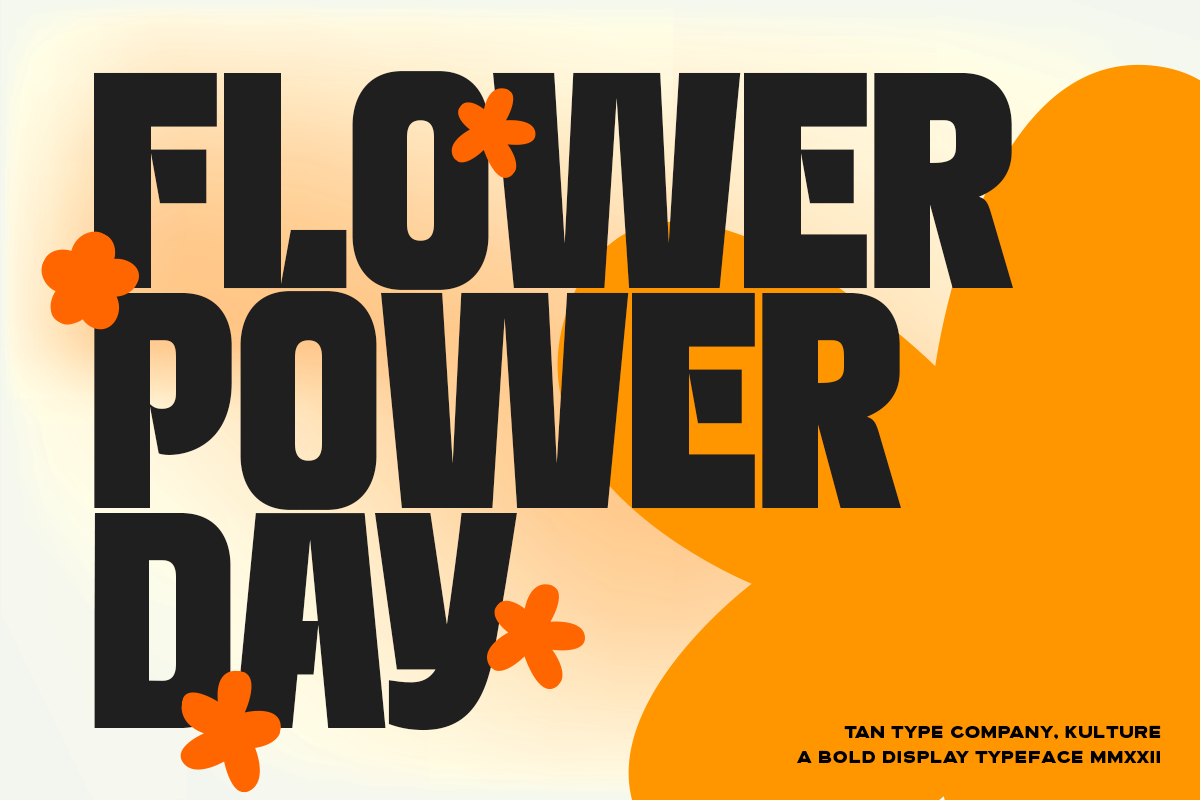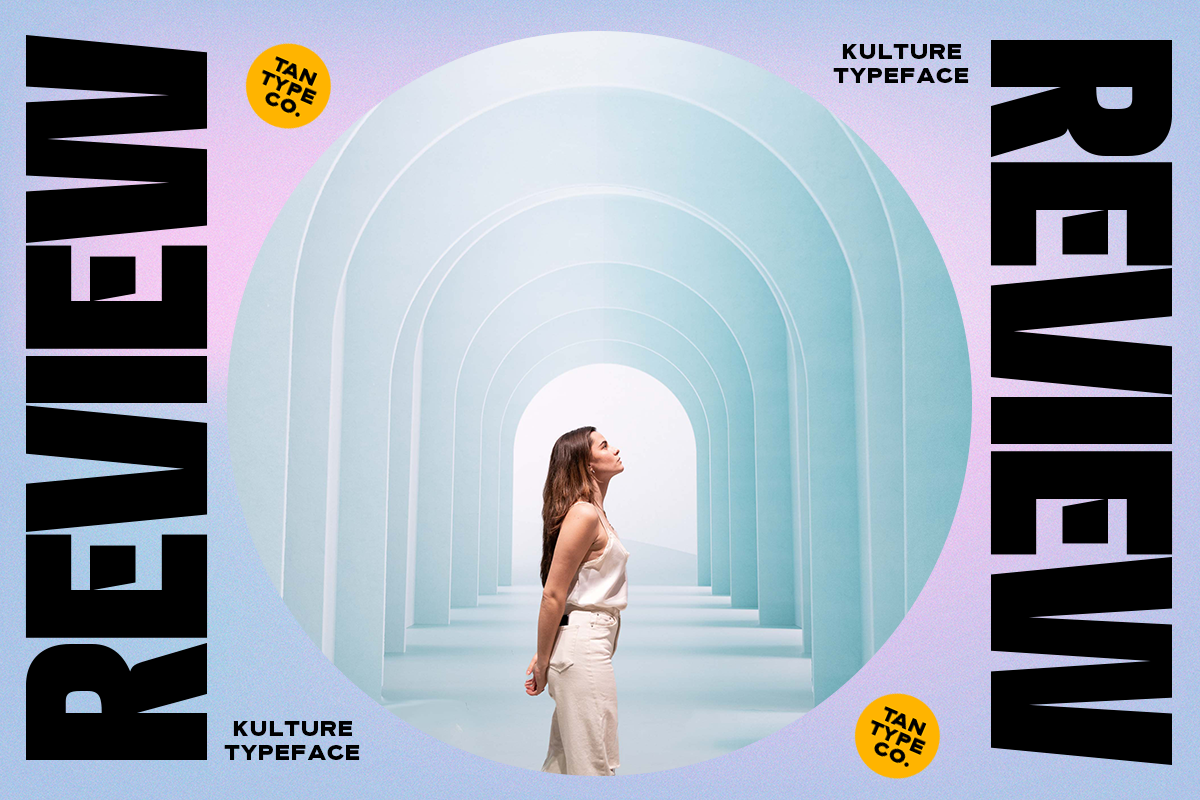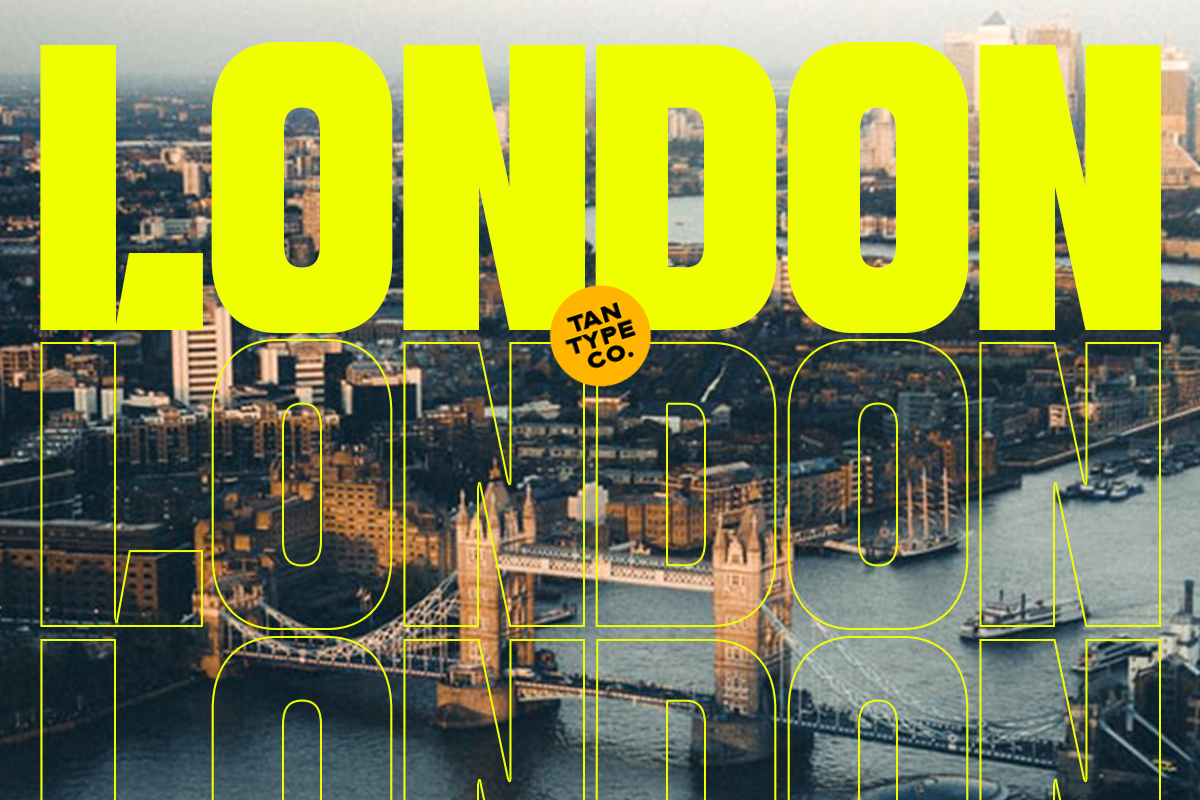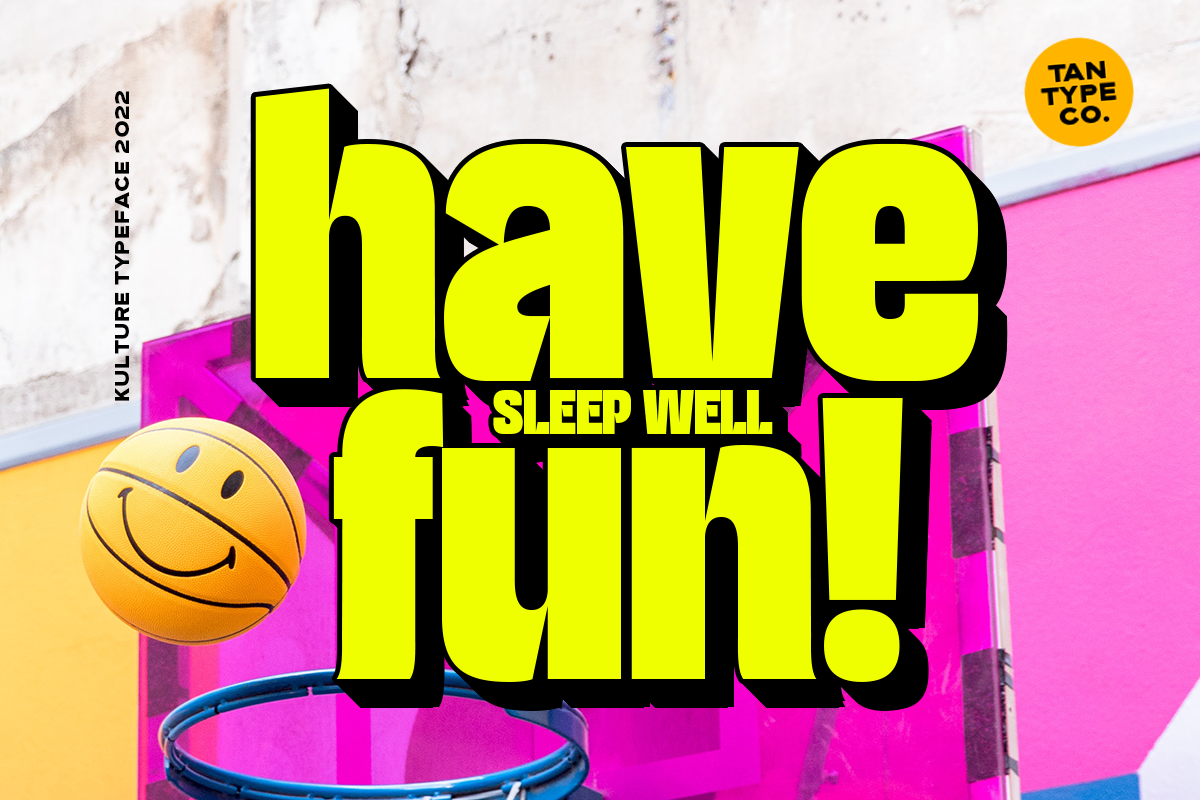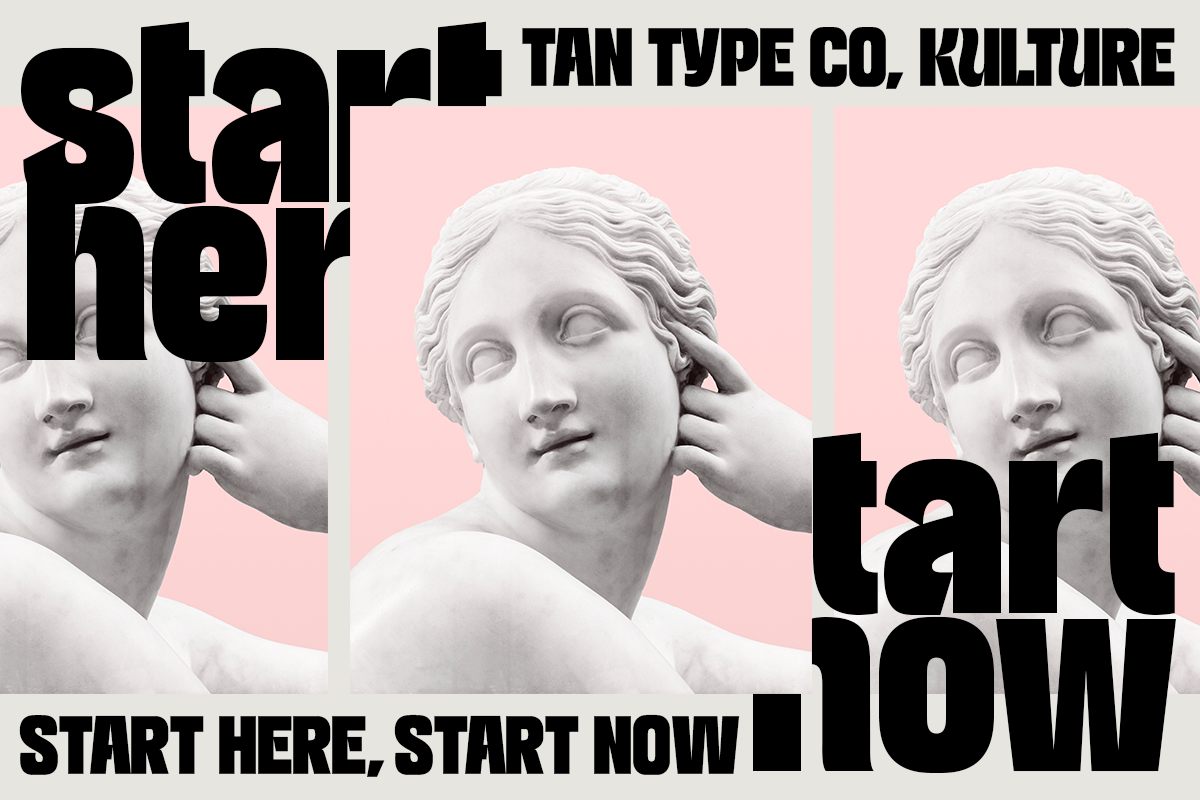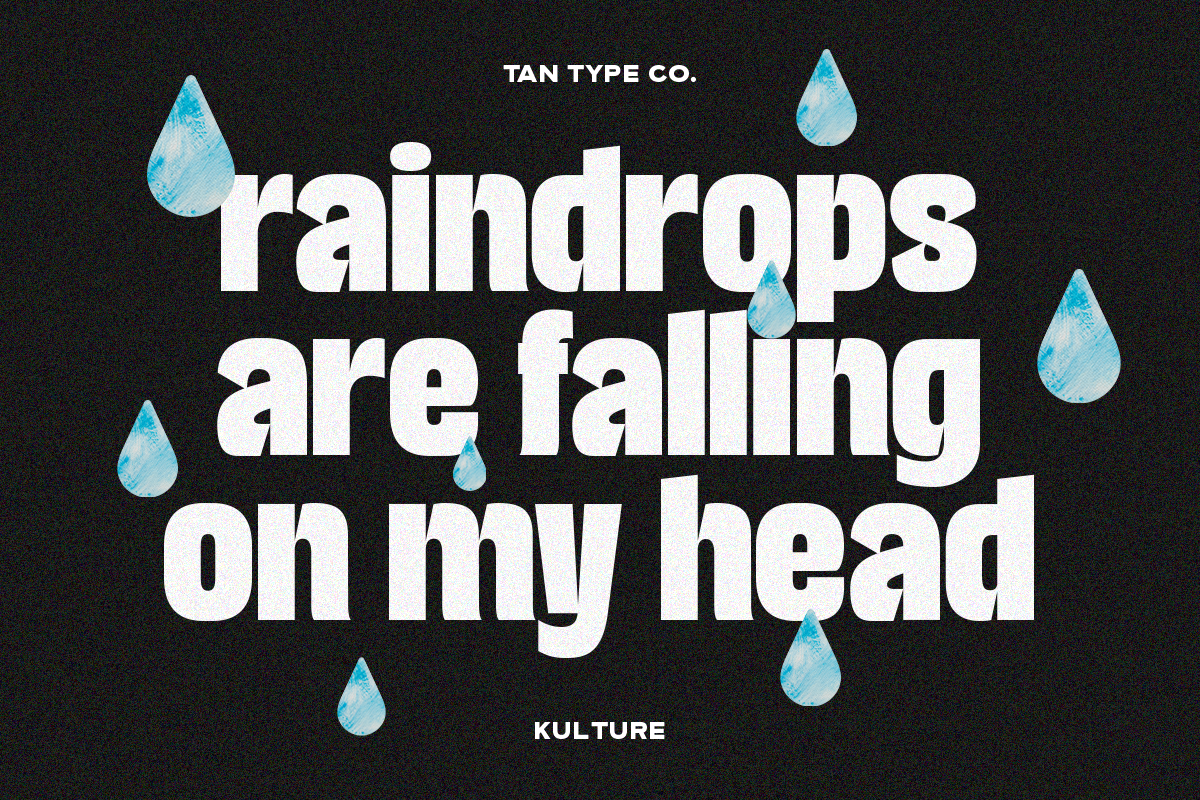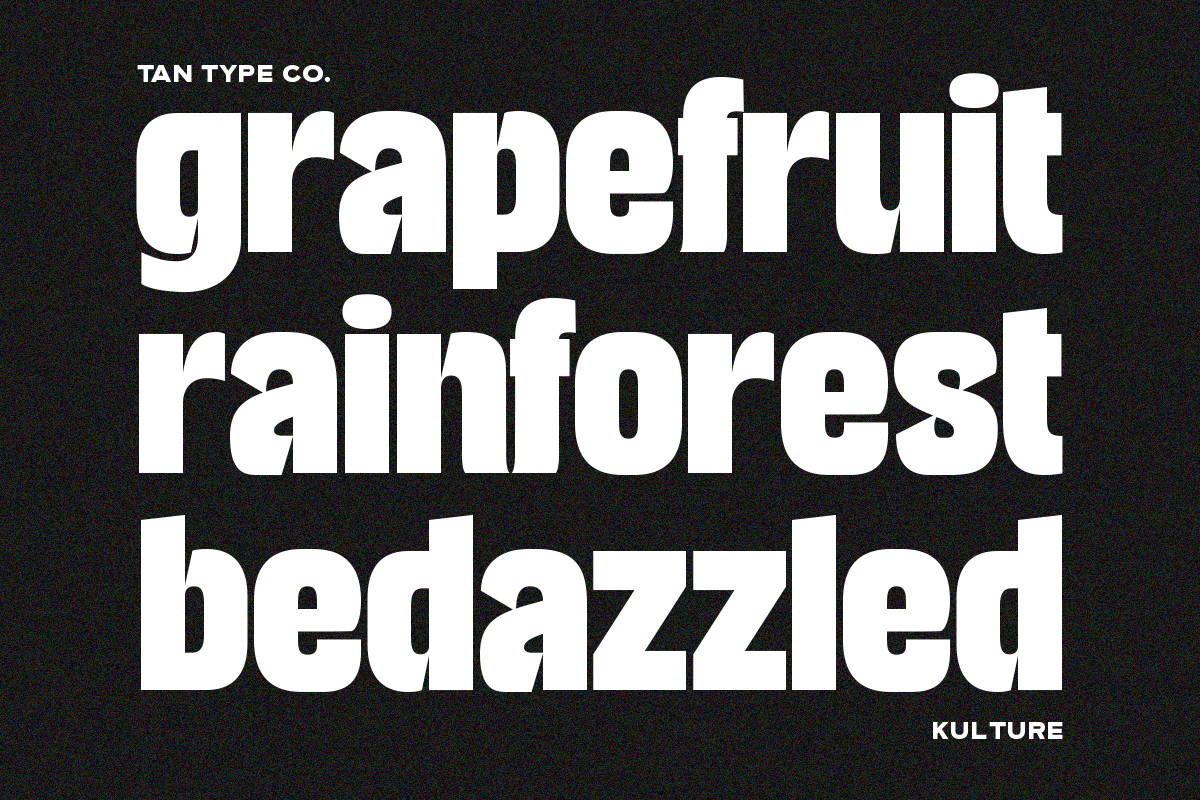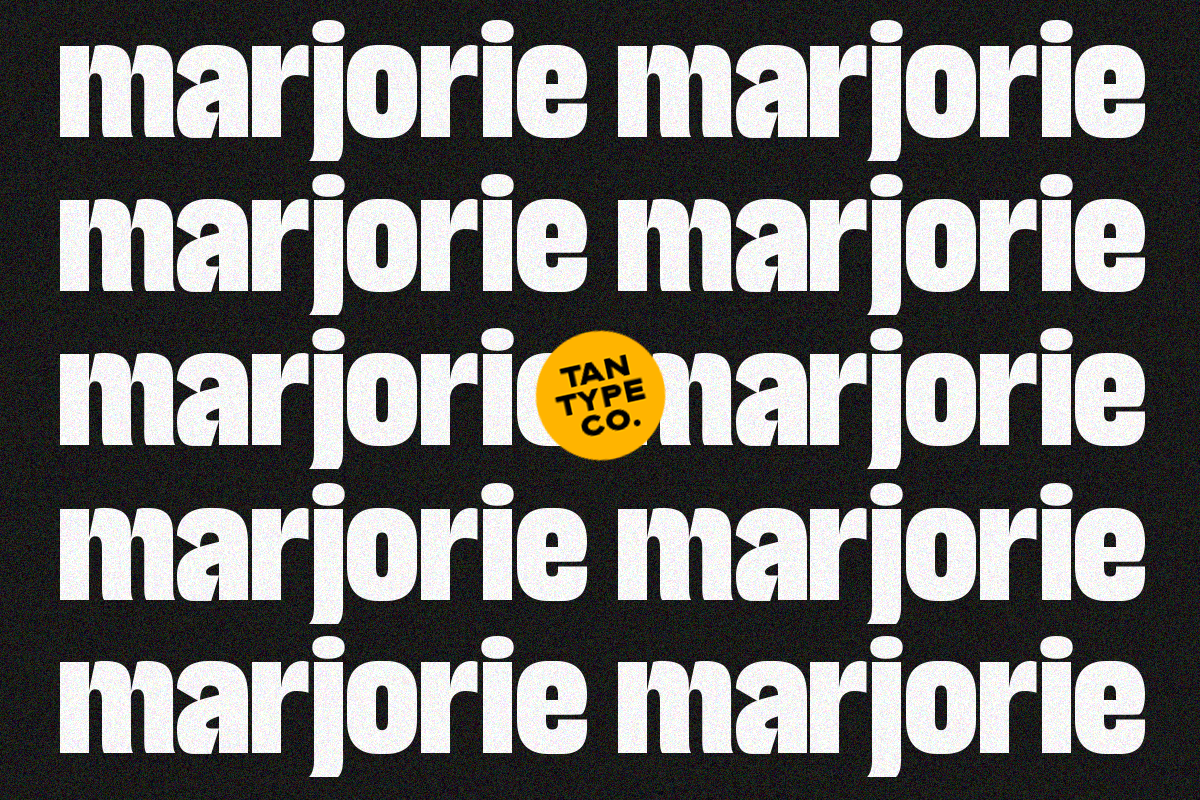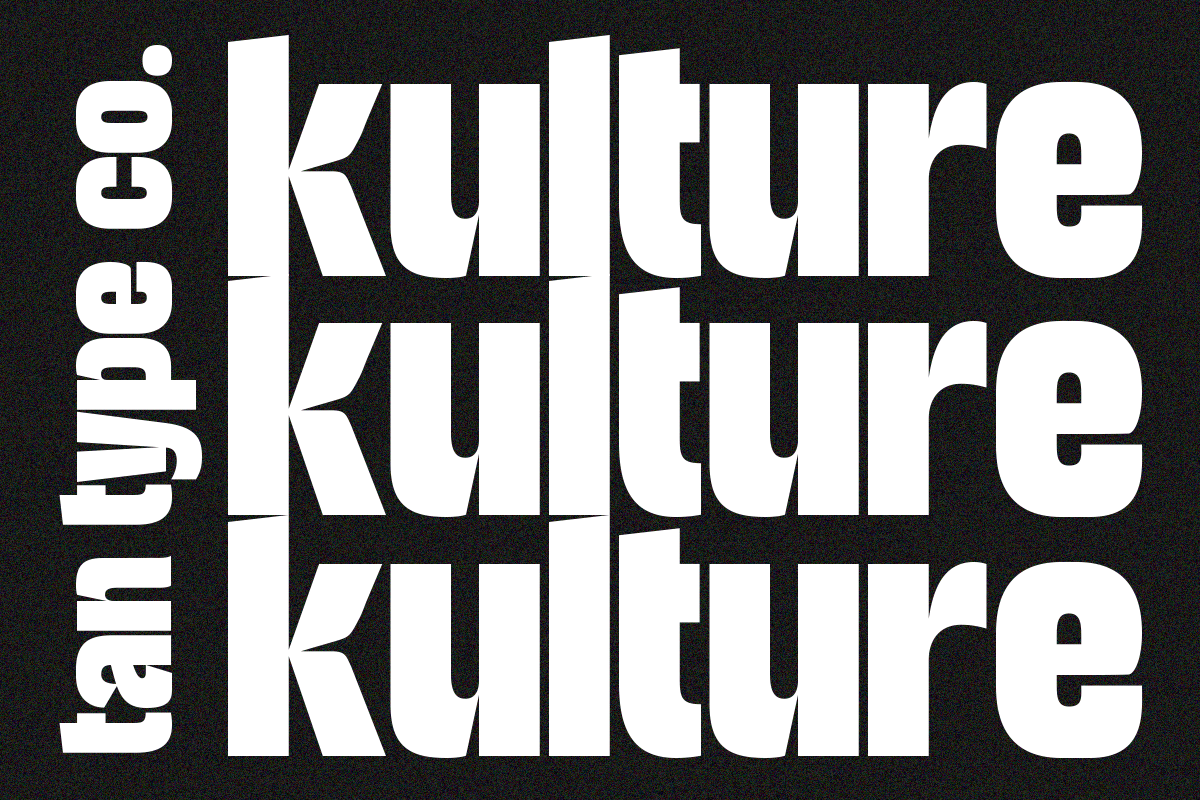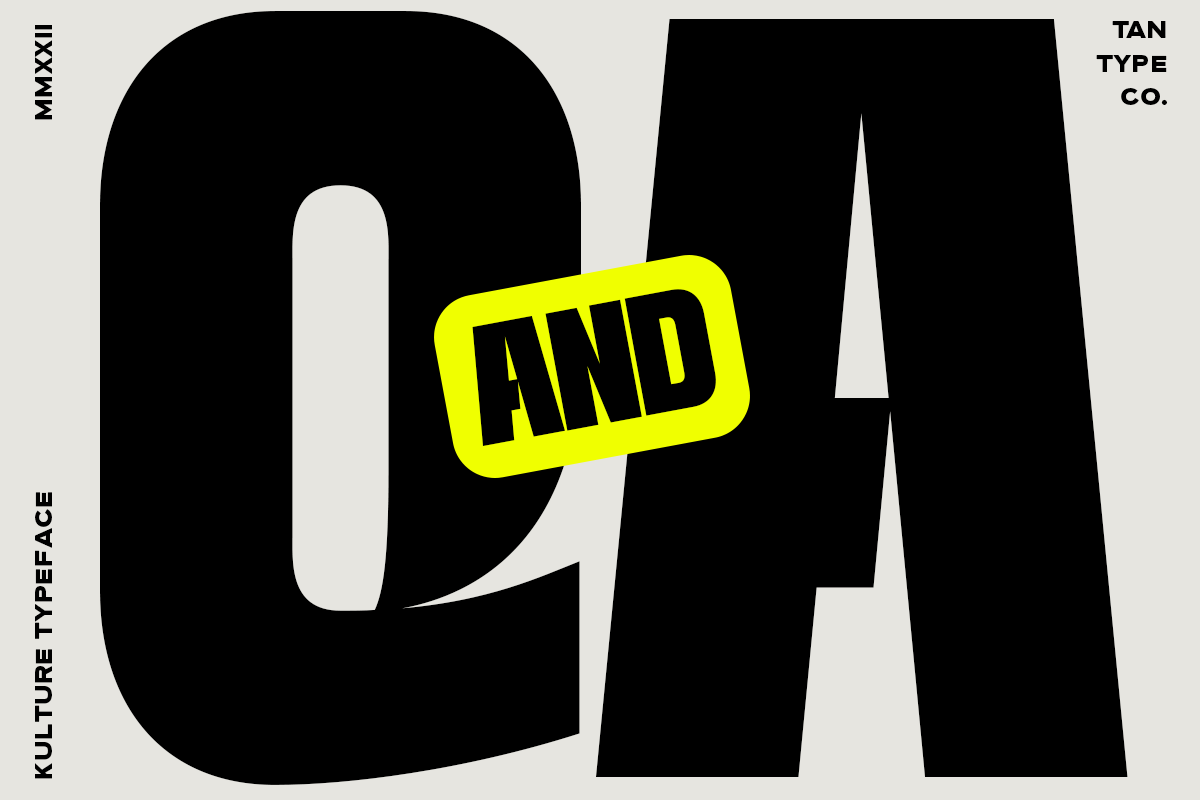
KULTURE is a powerful and ultra-bold typeface with a striking geometric presence and confident personality. Its blocky letterforms and tight spacing create a bold visual rhythm, blending modernist energy with unmistakable impact.